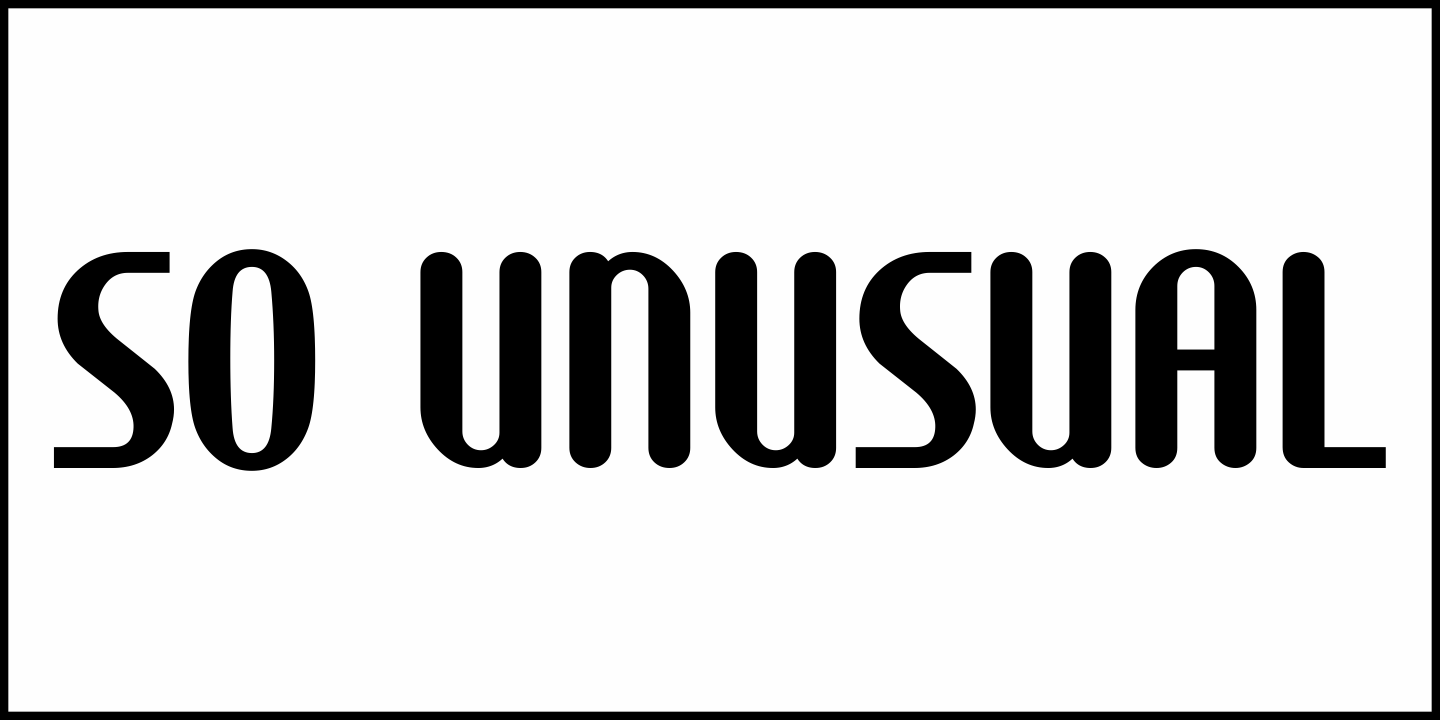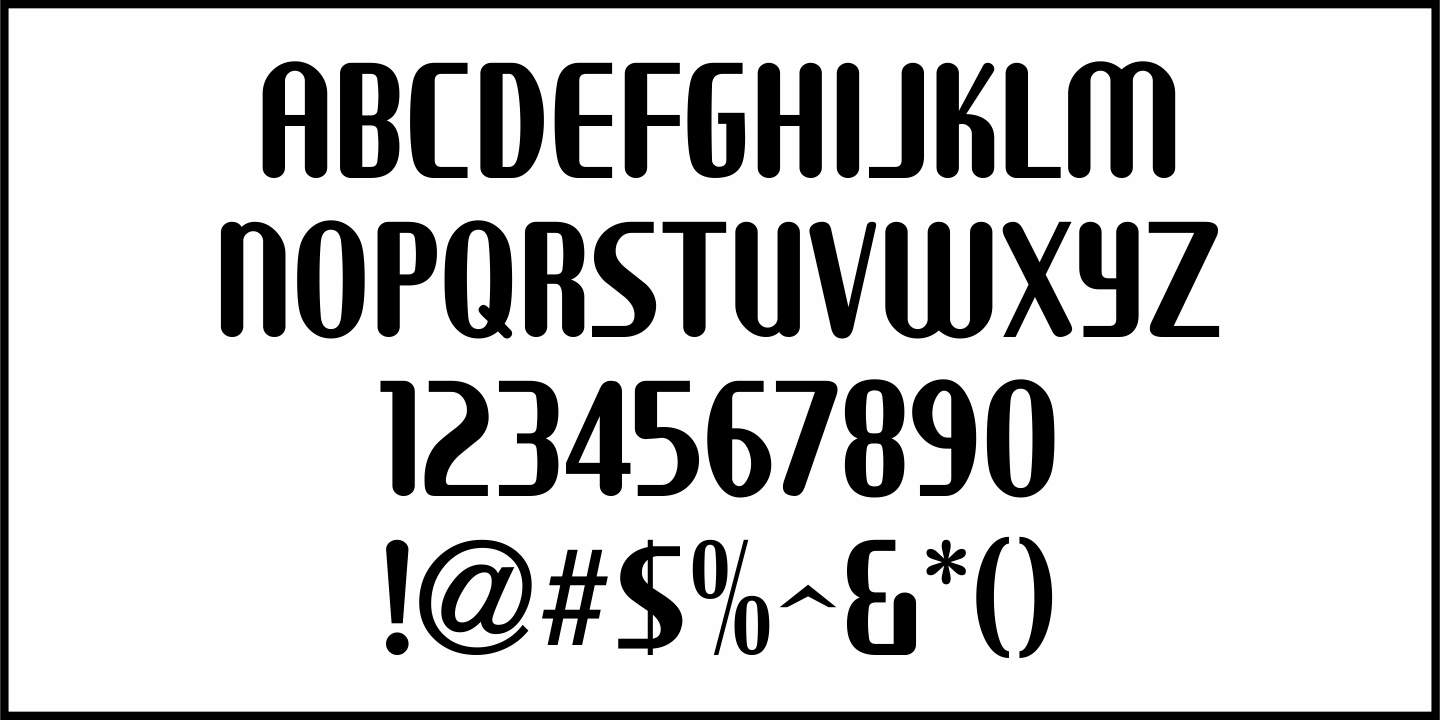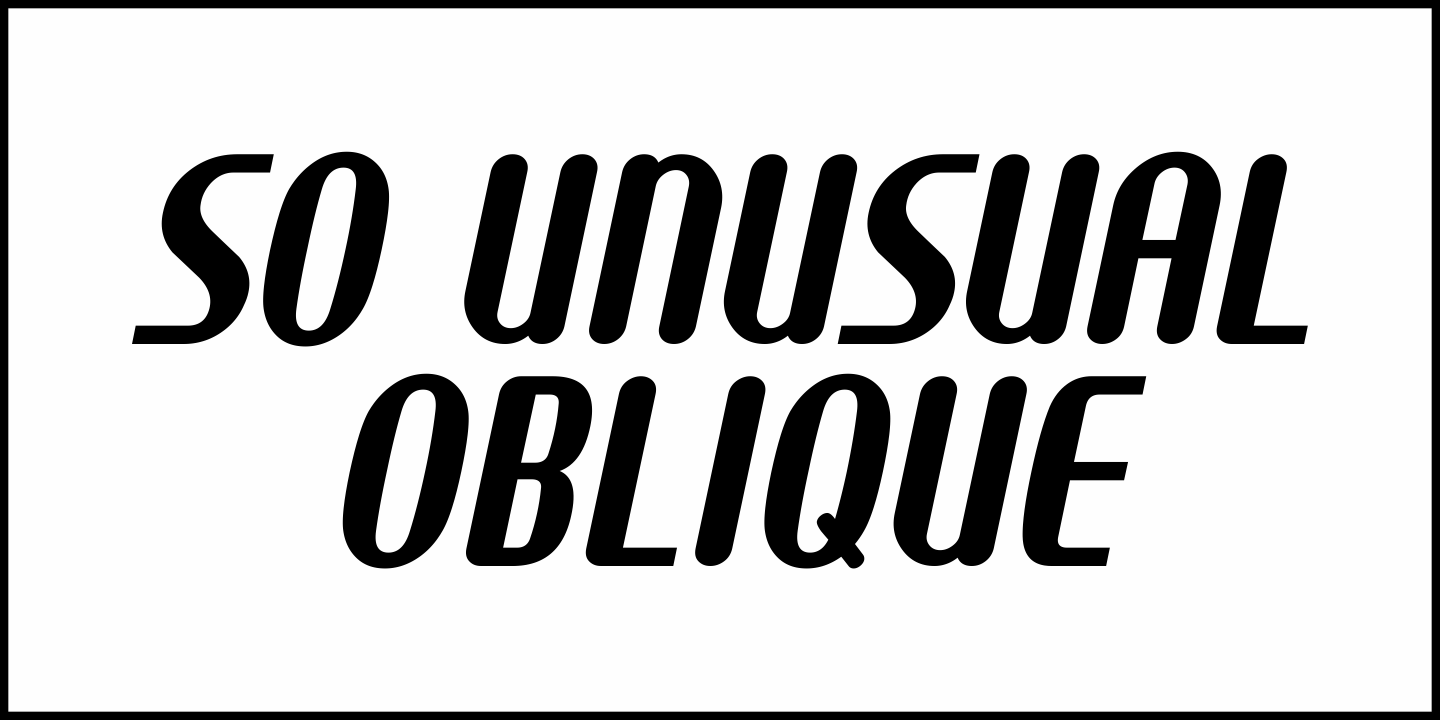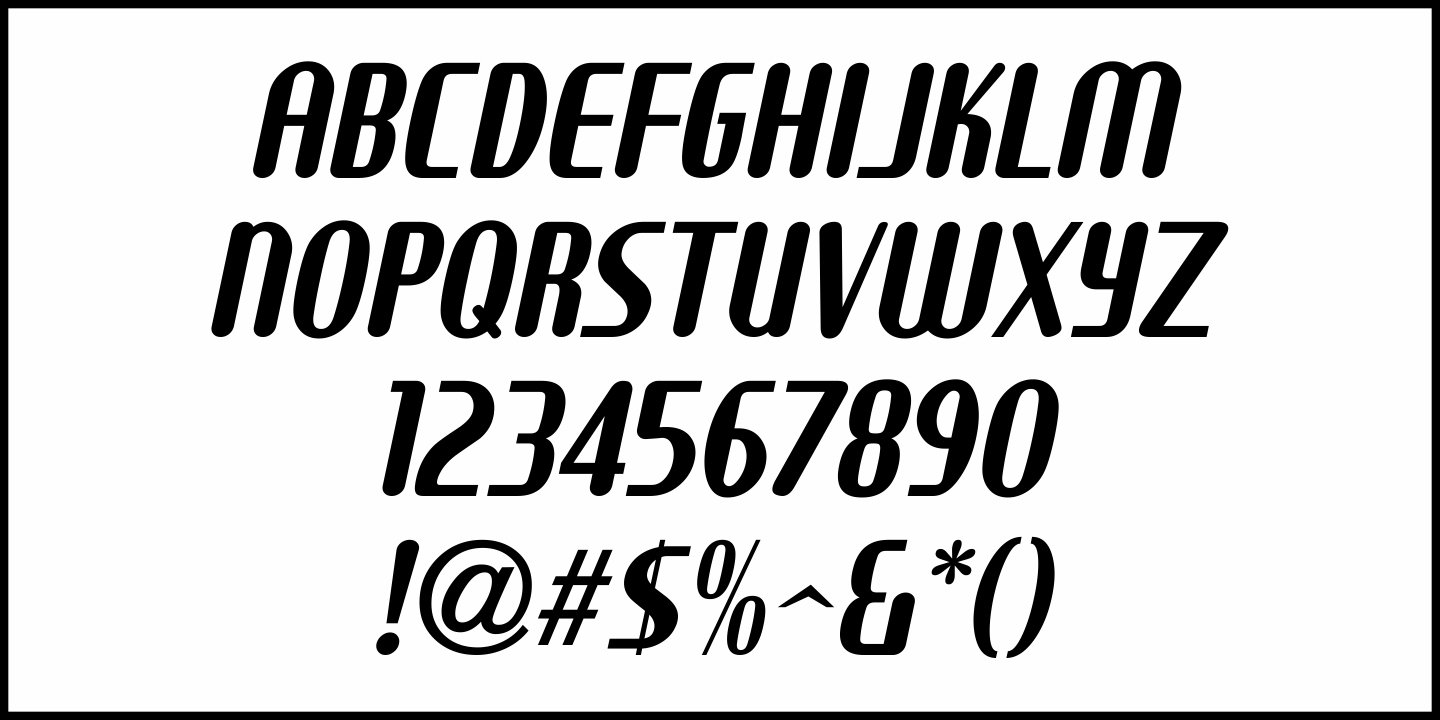
So Unusual
The hand lettered credits for the 1942 film comedy “I Married a Witch” were so unusual (with their mix of rounded and flat terminals and varying character shapes) that the only logical name for a digital revival would be So Unusual JNL… which is available in both regular and oblique versions.
So Unusual JNL Regular by Jeff Levine Fonts